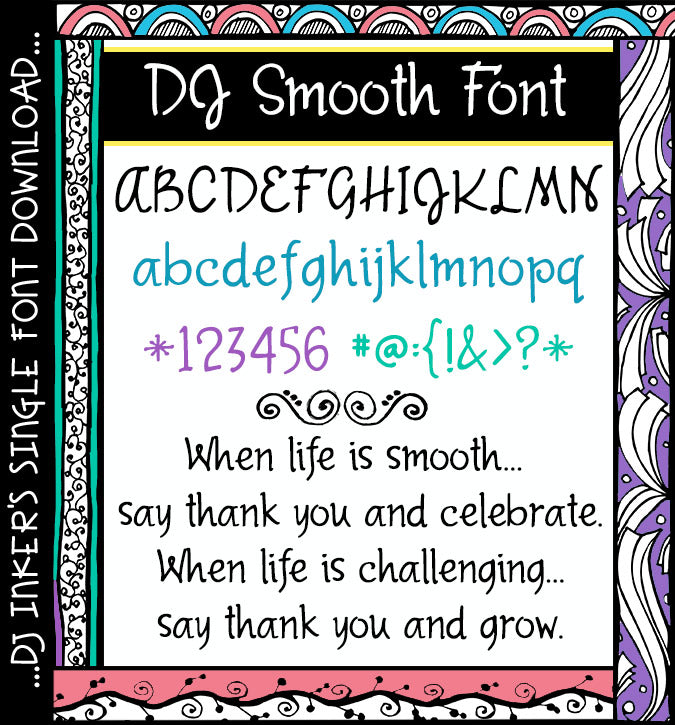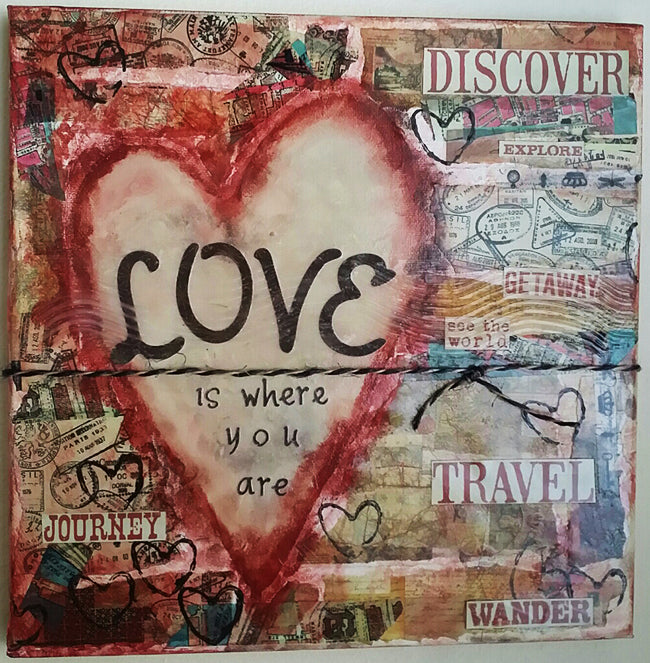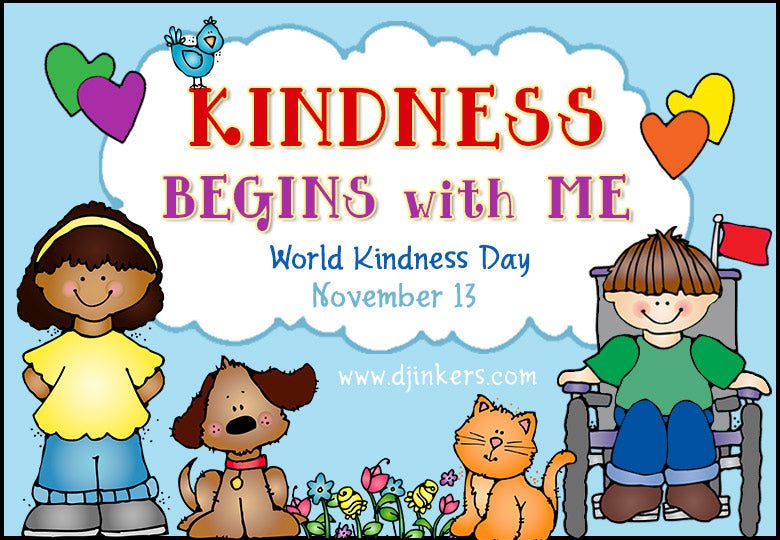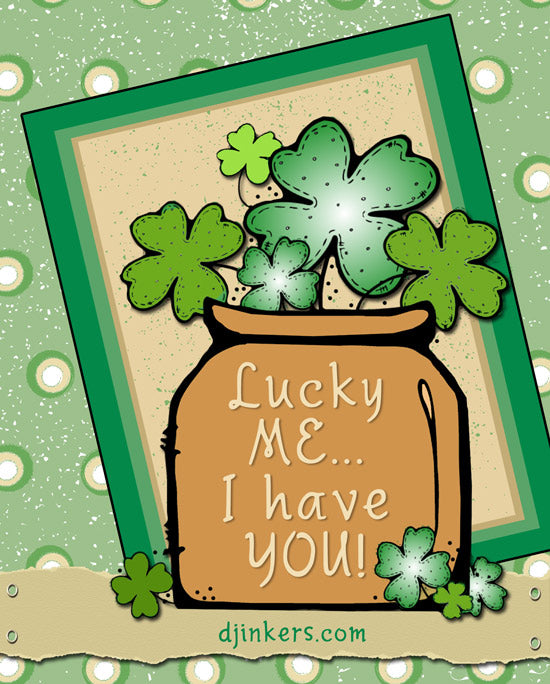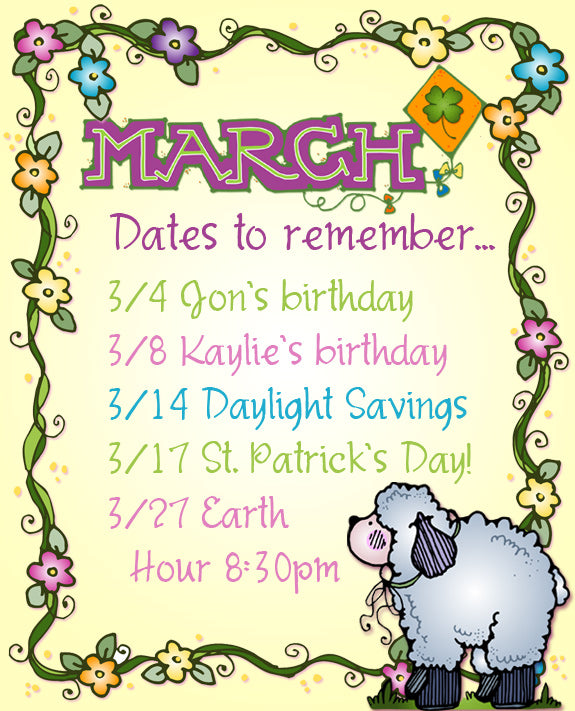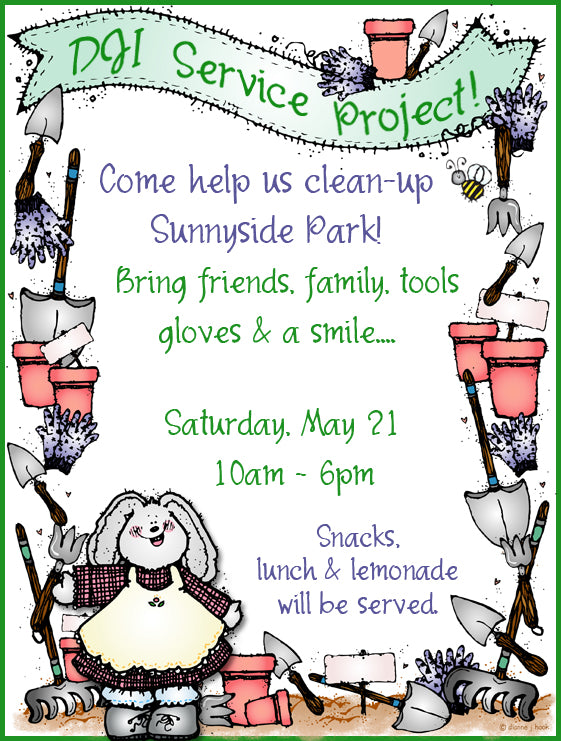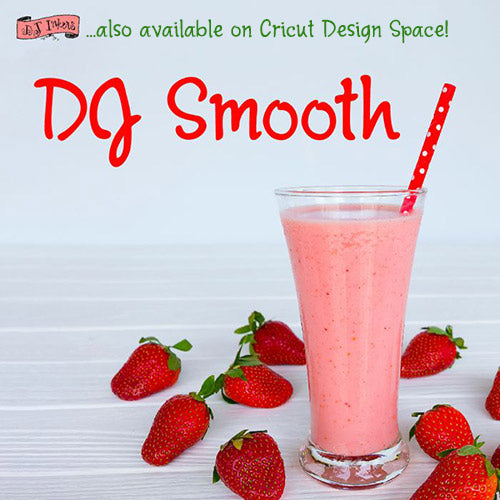
DJ Smooth Font Download
Your projects will look DJ Smooth with this sleek and graceful font.
The hand drawn lettering is sassy and classy... but still clean and easy
to read in any size. Great for special events and invitation text, journals,
scrapbooks, home crafts and more.